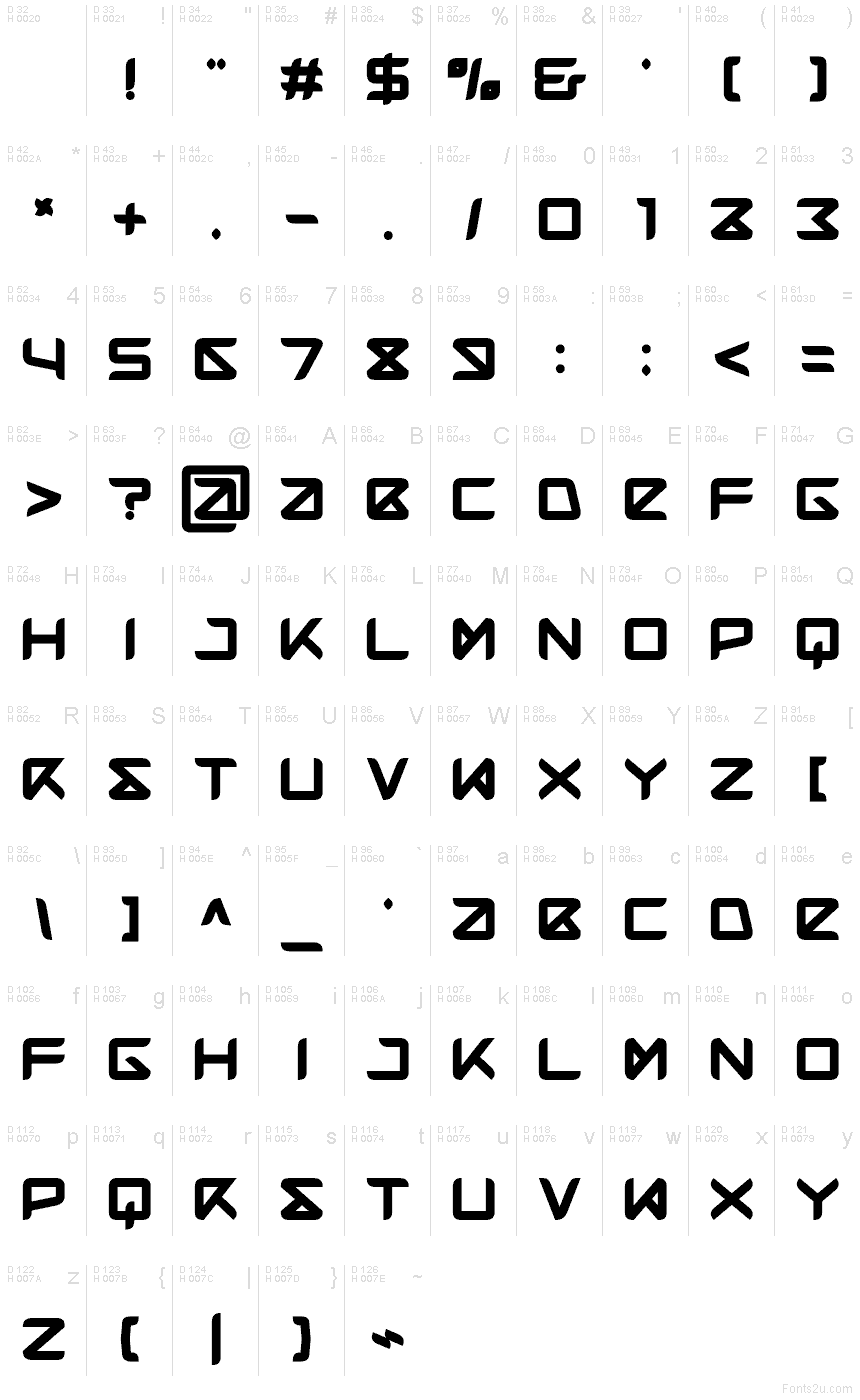
Bemand
Bemand font by Graphicfresh is a free futuristic display typeface. Its personality comes from chunky, machined strokes with rounded outer corners and sharp, chiseled cuts that carve bold diagonals into each form. The letters lock together with a steady rhythm—tight, confident, and a little aggressive—making headlines feel like precision-milled badges. It’s bold without shouting, thanks to those cushioned curves against crisp internal angles.
Using Bemand, you get instant tech swagger for esports logos, sci‑fi posters, game titles, gadget packaging, streaming overlays, and event flyers. The compact counters hold up at large sizes, while the consistent weight keeps wordmarks cohesive. For body copy, pair it with a light, neutral sans to let the blocky shapes breathe; a touch of extra letterspacing helps on smaller headings. This free font shines when you want high-impact typography with a clean, engineered edge.